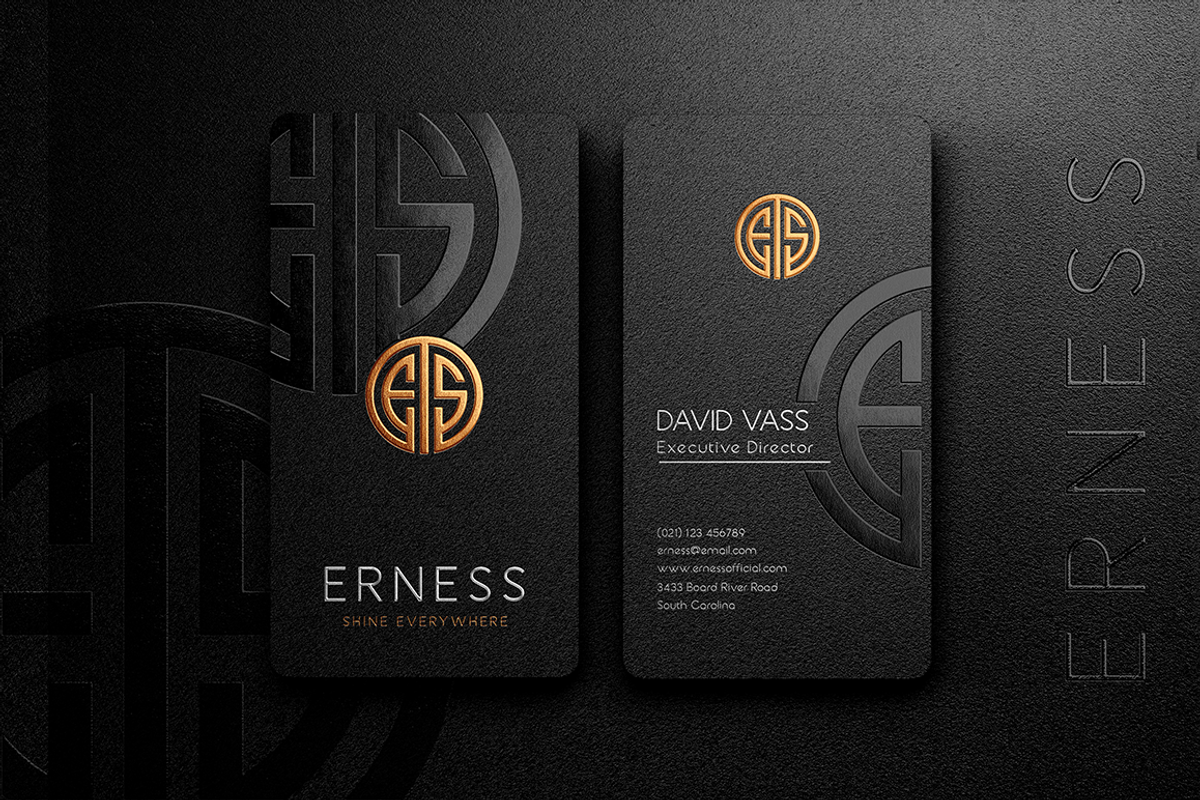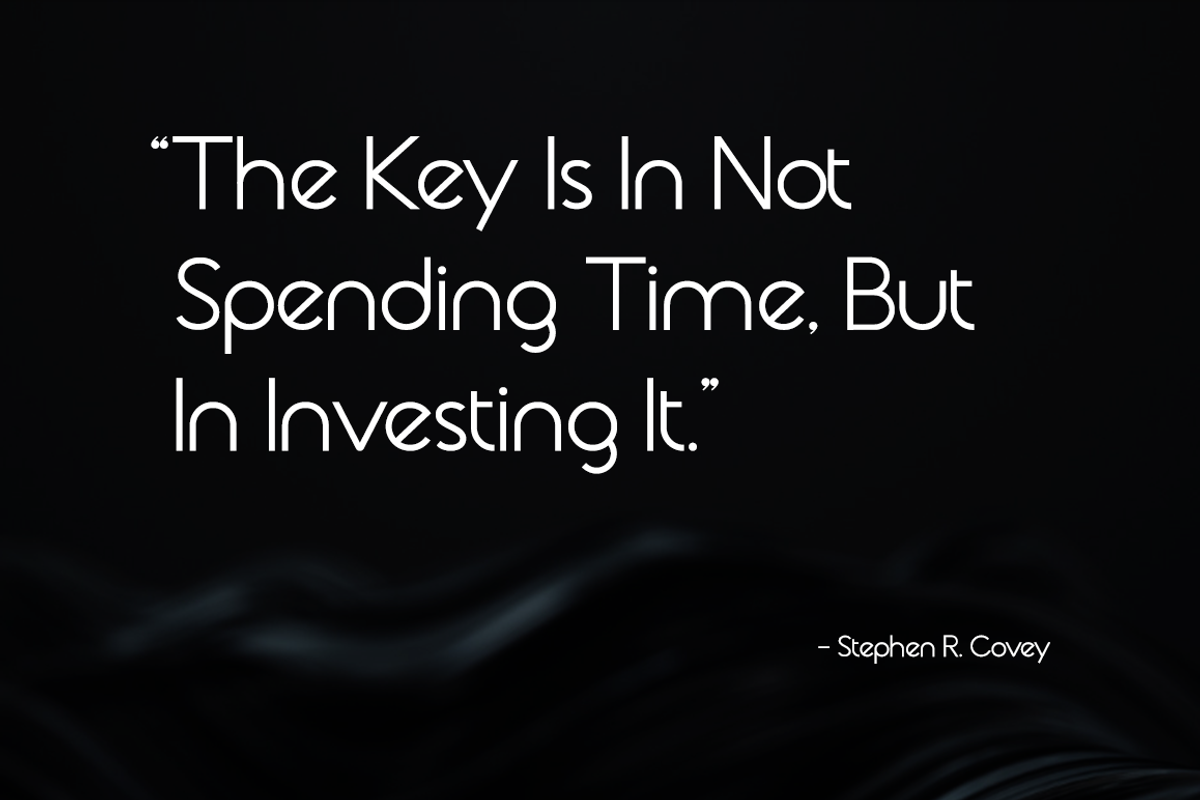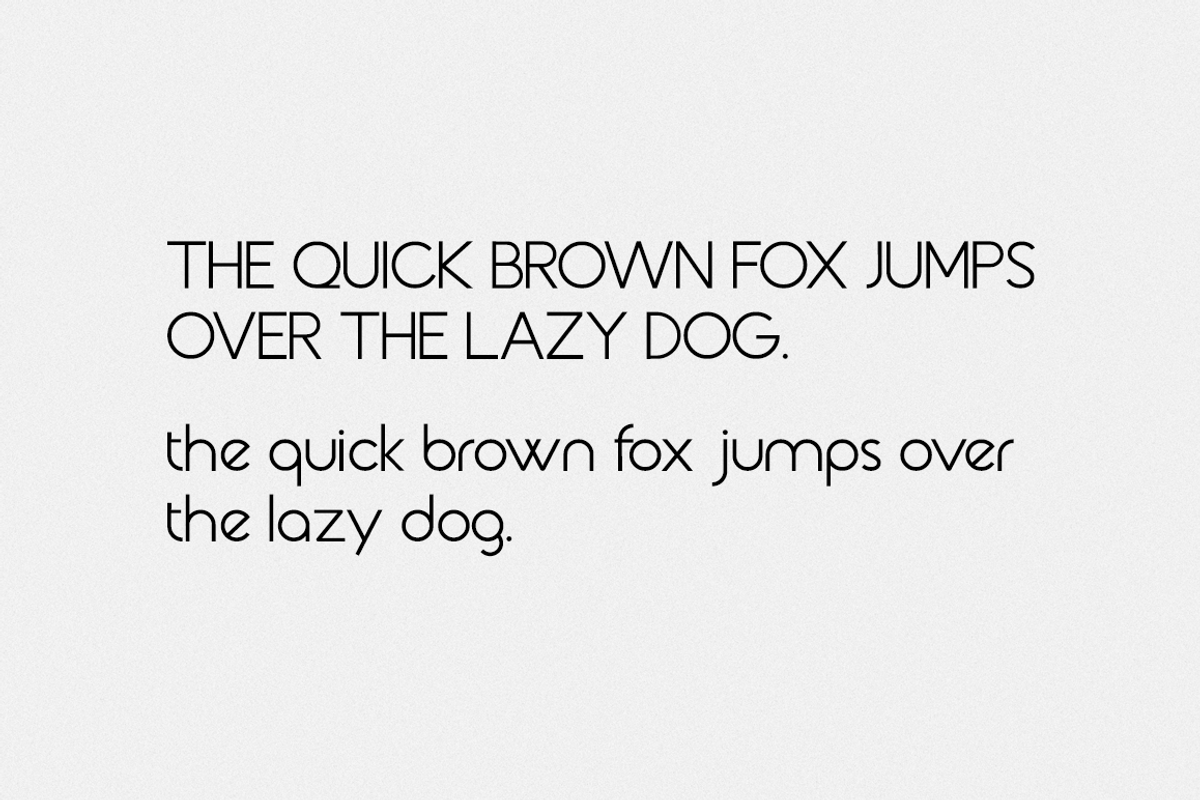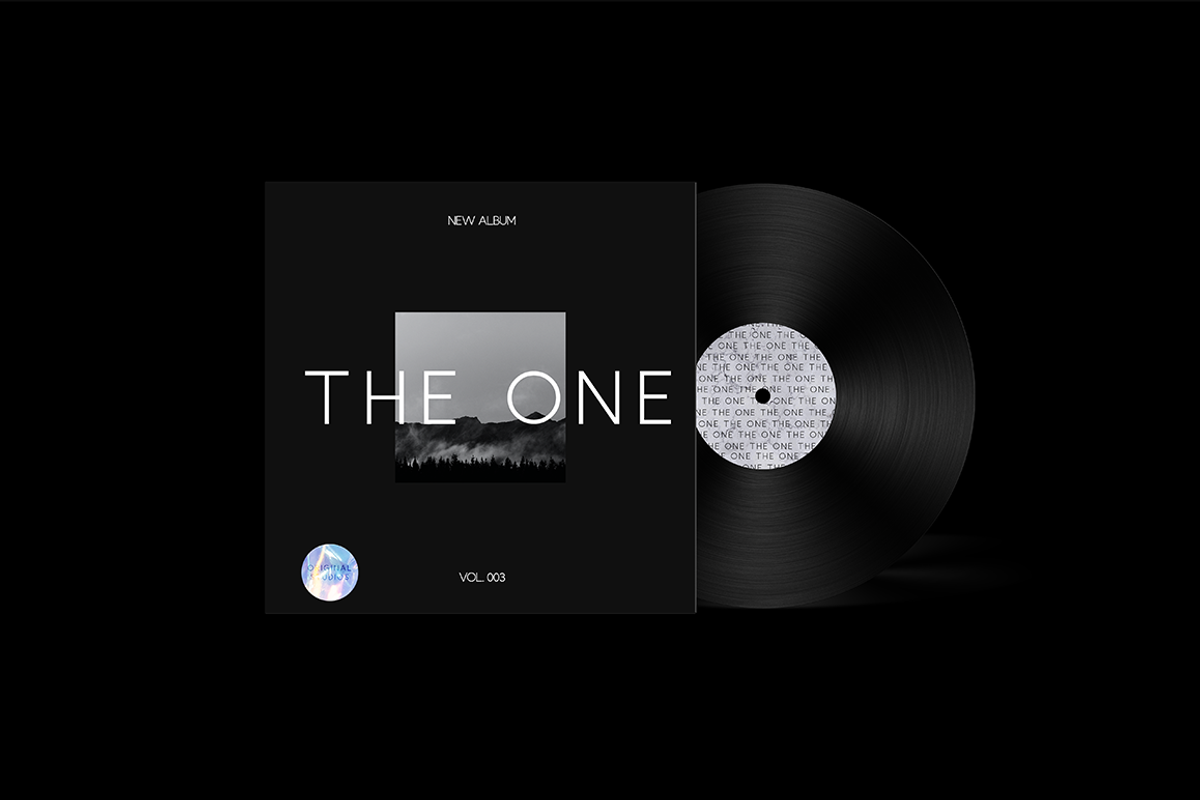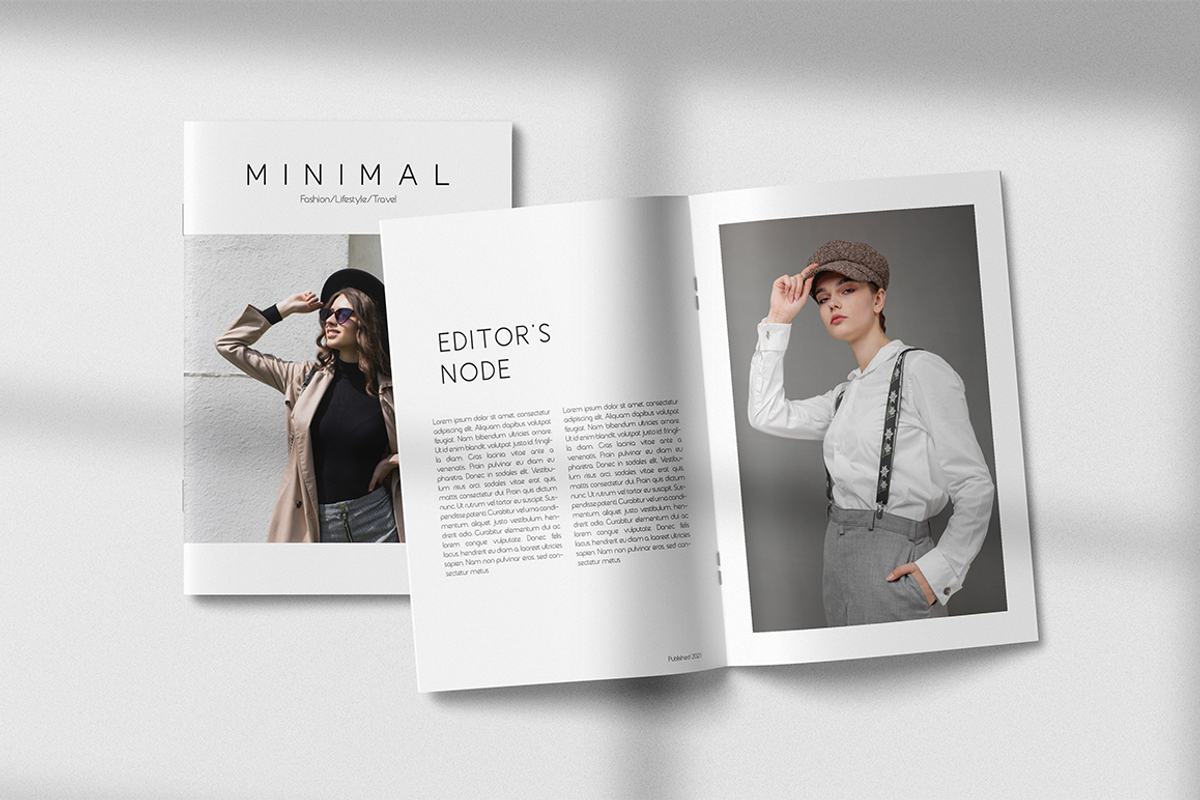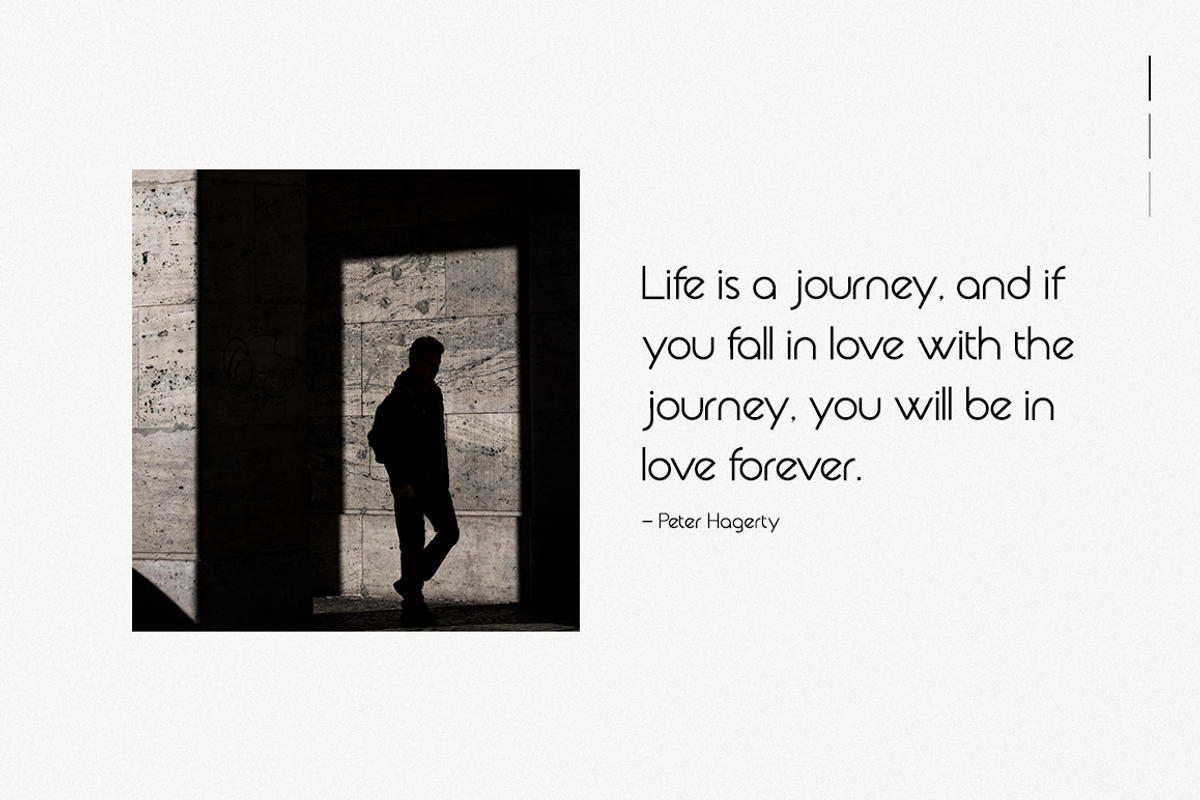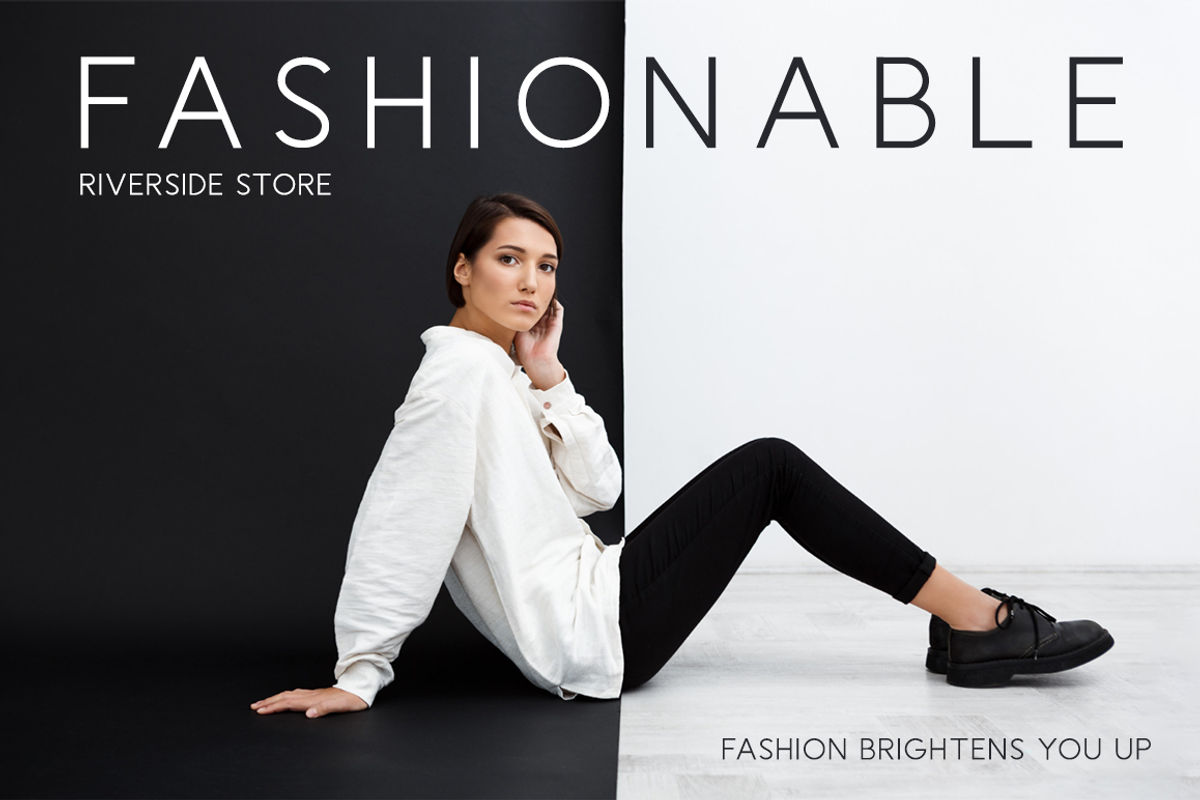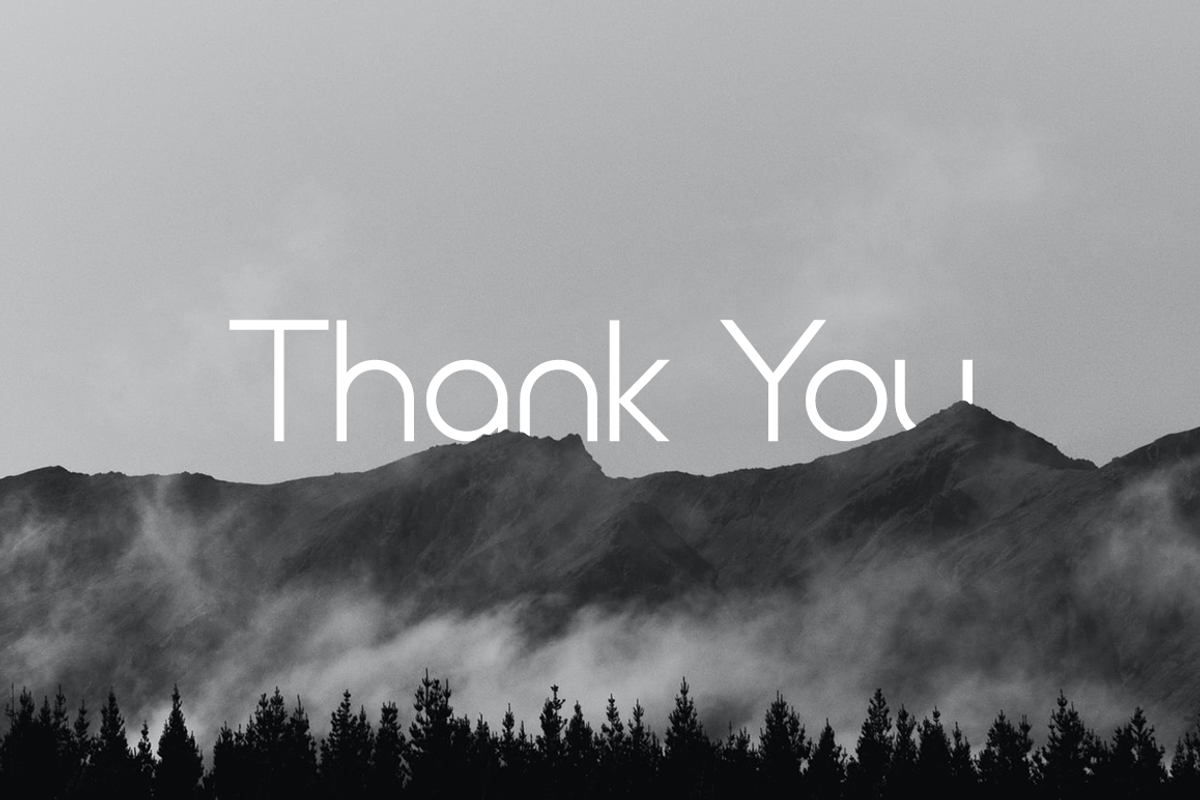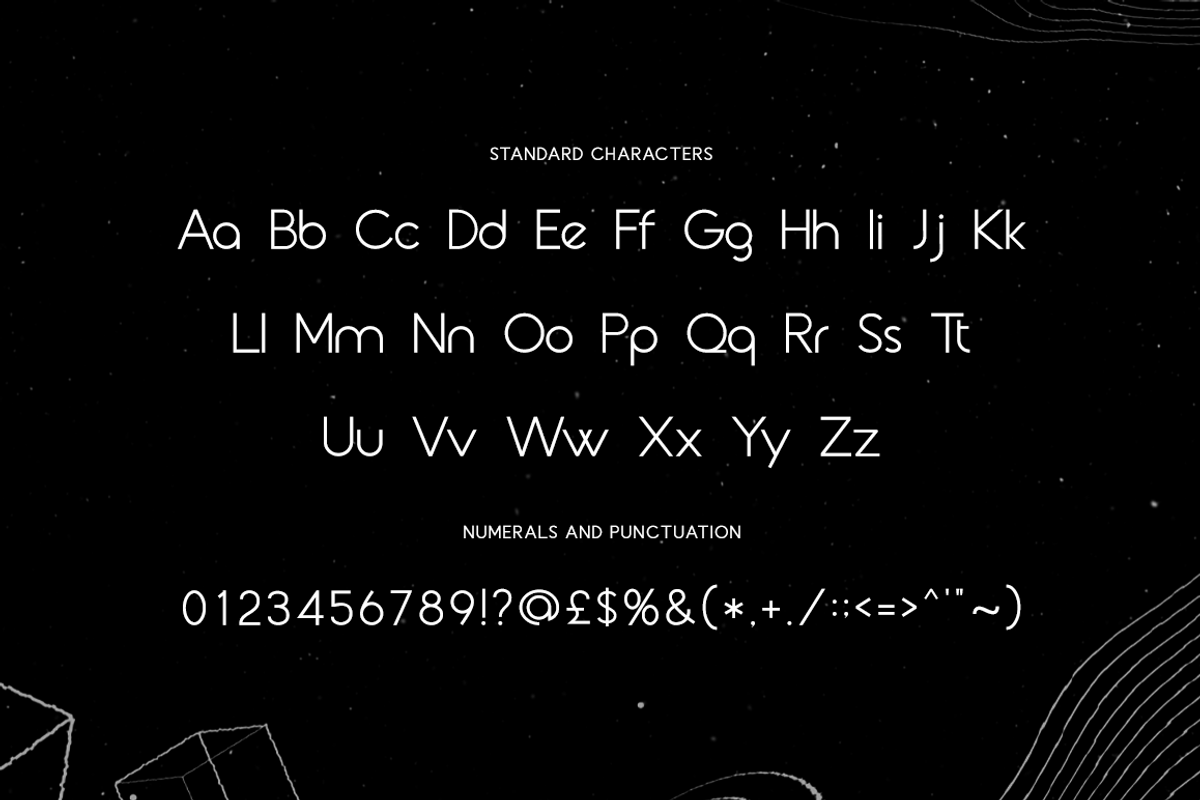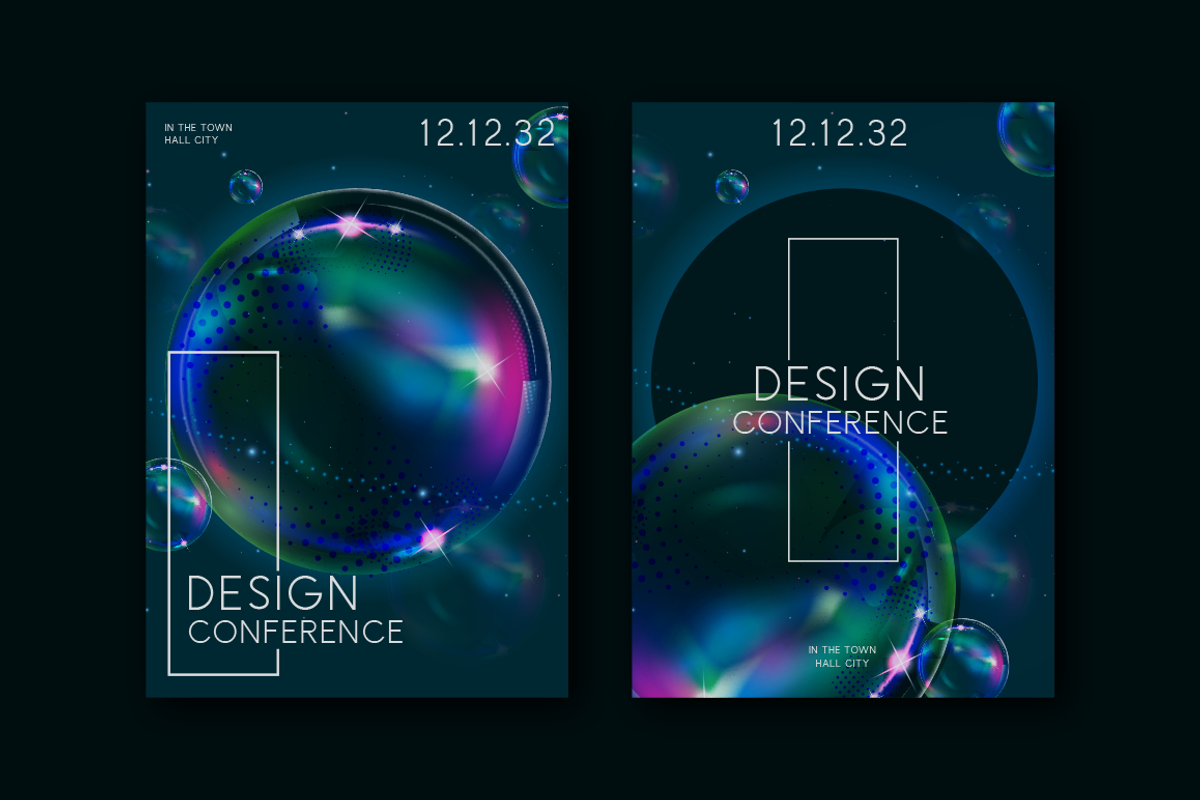
Camaufalge - Modern Minimalism Font
Camaufalge is an elegant and modern sans serif font. It can easily match your various projects, so add it to your creative ideas and watch how it makes them stand out.